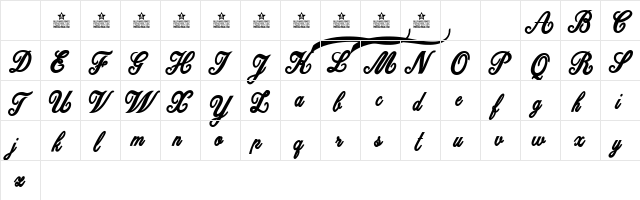
Dattermatter Bold Persoinal Use is a composed and adaptable typeface that performs quietly and consistently across a wide range of design contexts. Its bold stroke weight gives it real presence on the page.